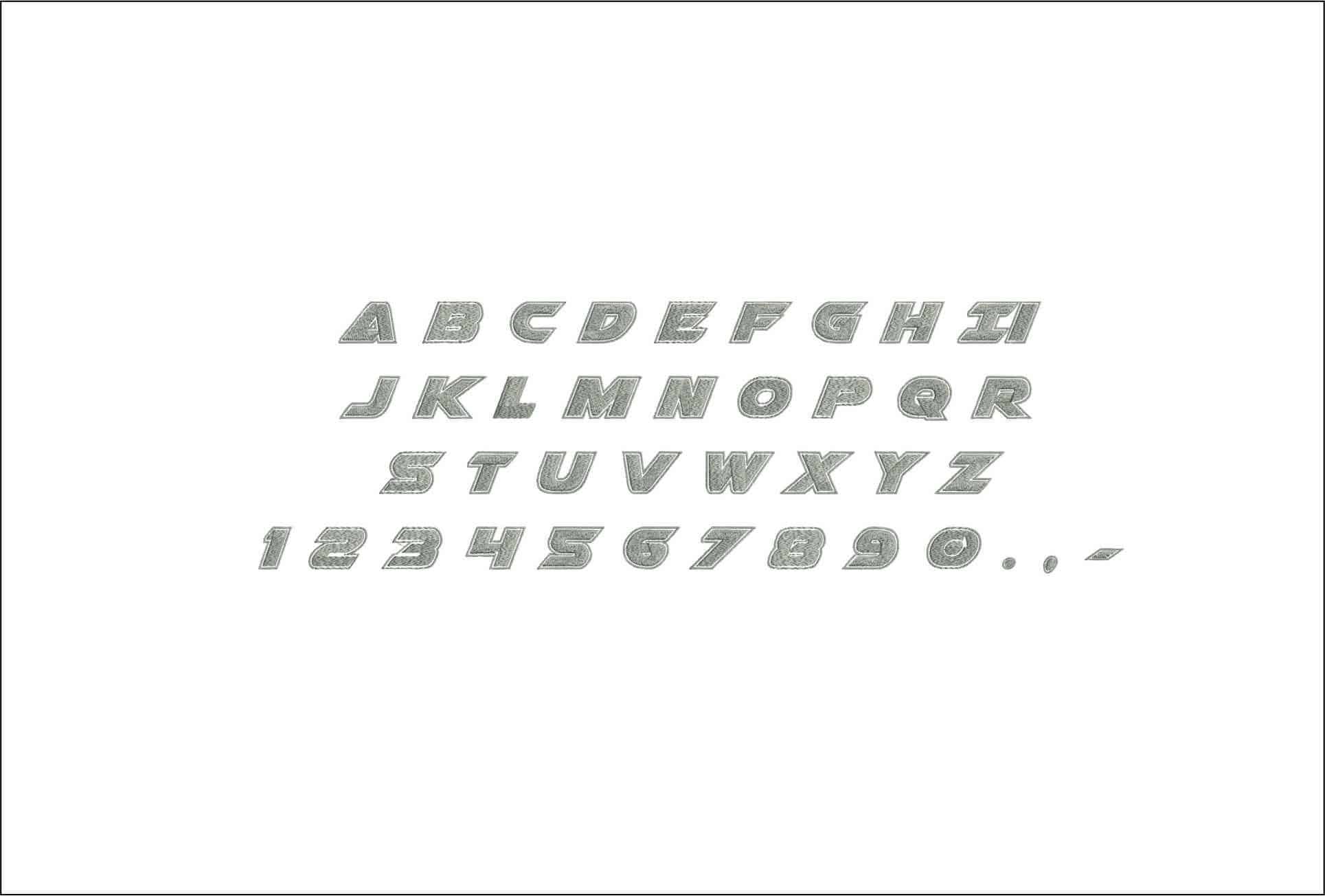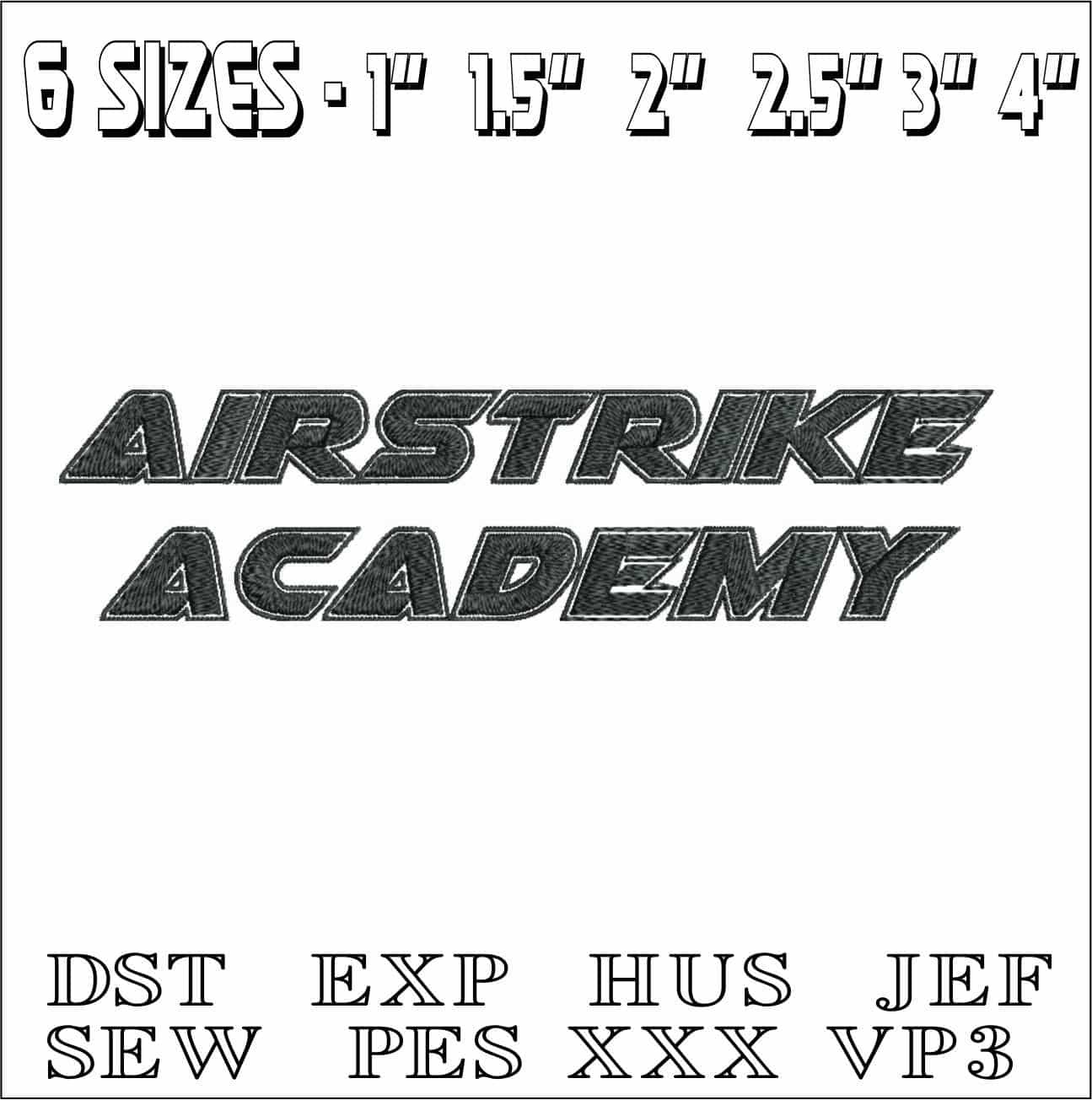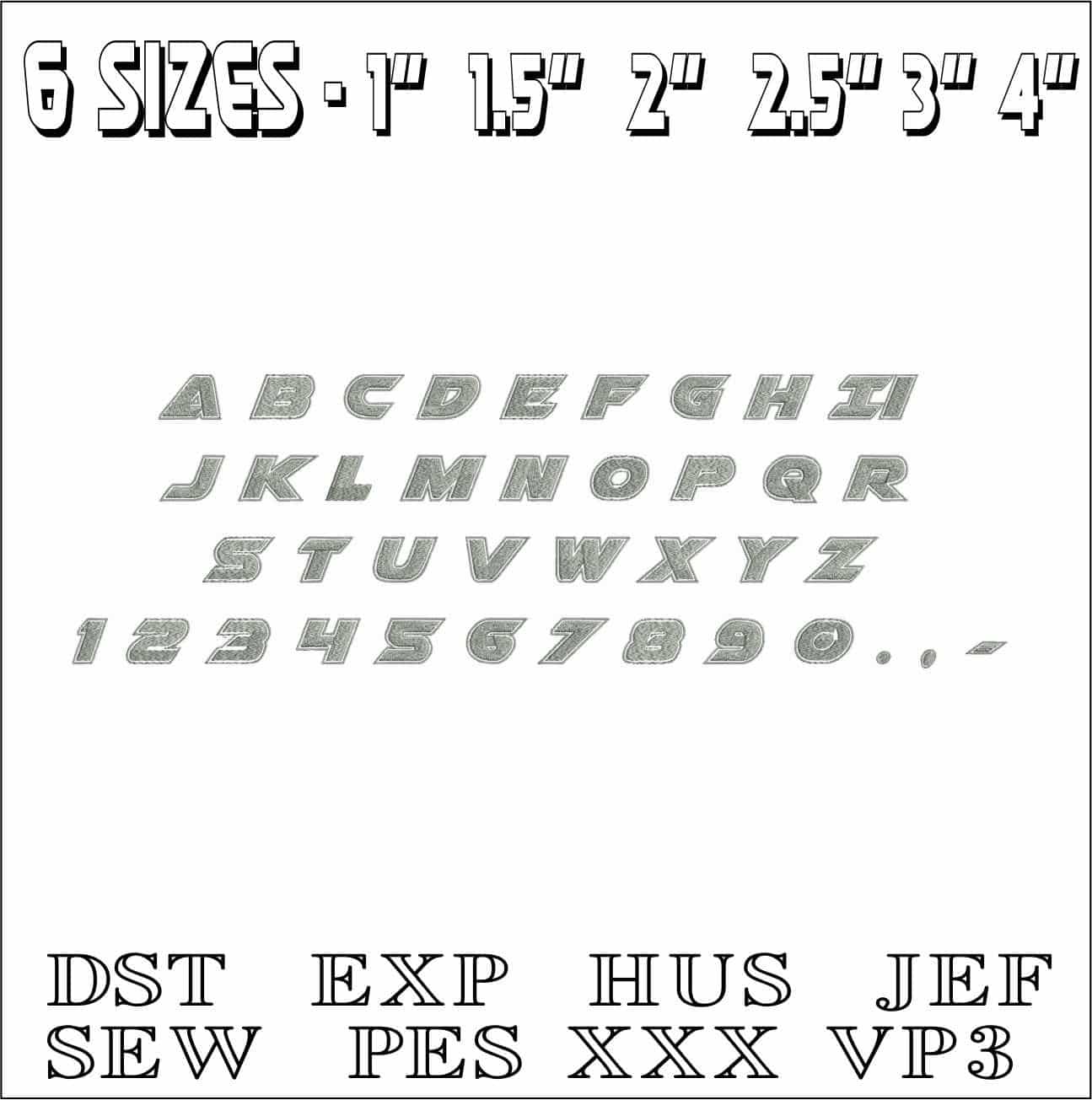
Airstrike Academy Font Embroidery Font Set - 1" 1.5" 2" 2.5" 3" and 4" - Machine Embroidery Alphabet Font - instant download
A sharp, sporty italic block font that gives names, team gear and bold monograms a clean athletic look.
Bring sporty edge to names, initials and team-style wording with this Airstrike Academy embroidery font set. The alphabet uses angled block capitals with a bold outlined fill, giving every letter a fast, athletic look that reads clearly without feeling plain. It suits anyone lettering up school kit, gym bags, club clothing or modern monograms that need a crisp, confident shape.
This style works especially well on sweatshirts, varsity-style jackets, hoodies, caps and sturdy tote bags where the slanted block lettering can really stand out. The outlined construction keeps the characters visually strong, so short names, numbers and simple phrases stay legible across different project scales. Use it when you want embroidery that feels clean and contemporary, with the black, grey and white sample shown in a no-nonsense sporting finish.